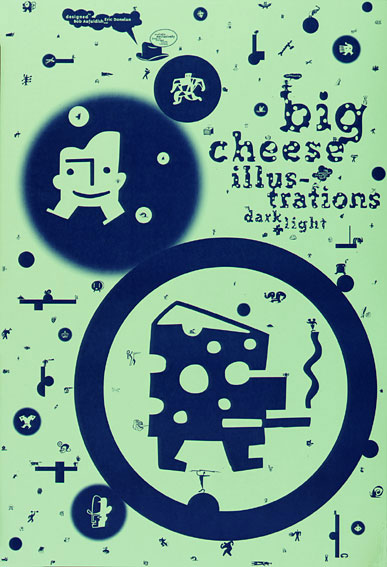
By Eric Donelan and Bob Aufuldish
Most clip art packages are really straight. We wanted to create things that had implied levels of meaning but didn't have any real meaning. You would read meaning into it, and hopefully through usage they will start to have a meaning.